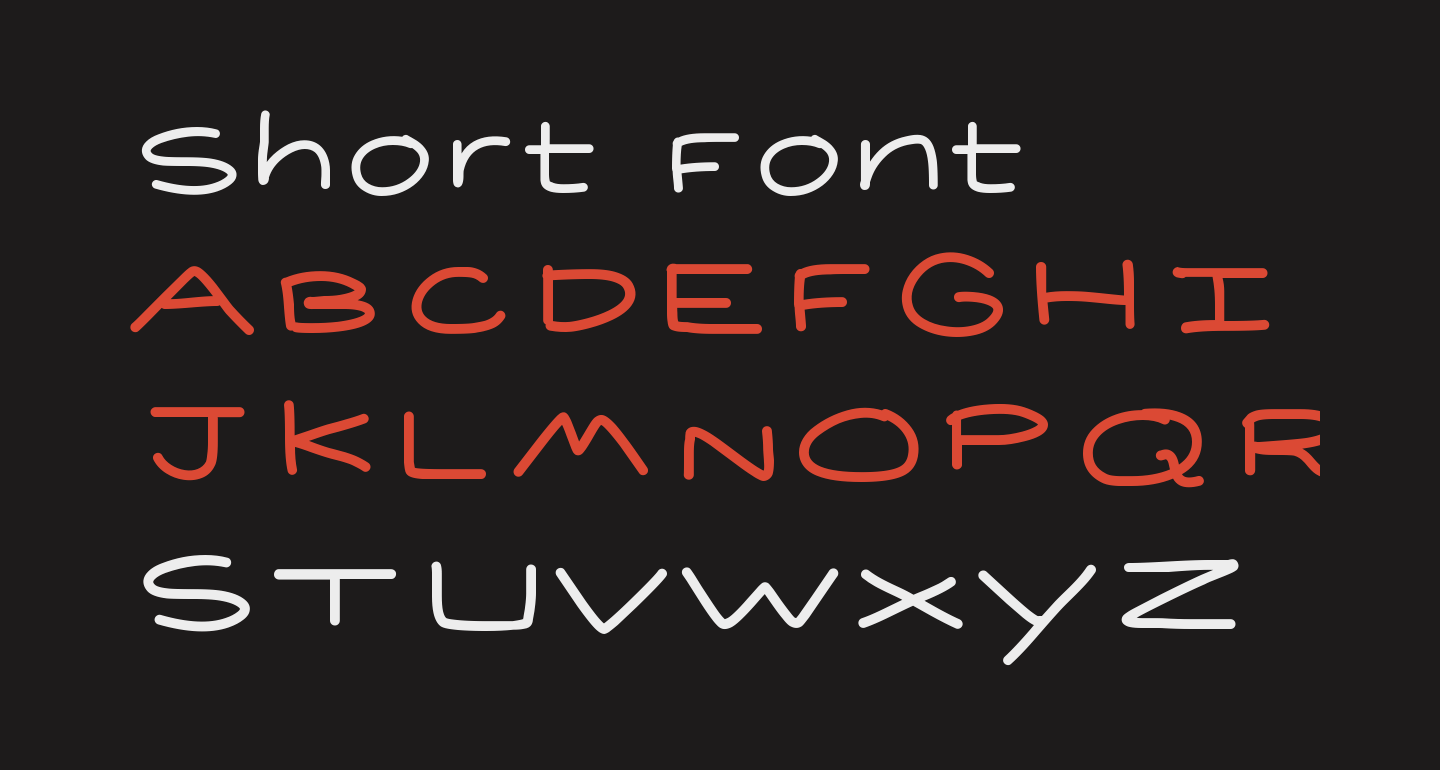
The Best Short Fonts 2022
Short text fonts cinzel by natanael gama josefin sans by typemade italiana by typemade antonio by vernon adams poiret one by denis masharov petit formal script by impallari type. As you might have noticed, the small caps unicode alphabet is probably the most complete of the three glyph sets that the engine behind this website uses. Click to find the best 18 free fonts in the short style.
The Q, X And S Letters Aren't.